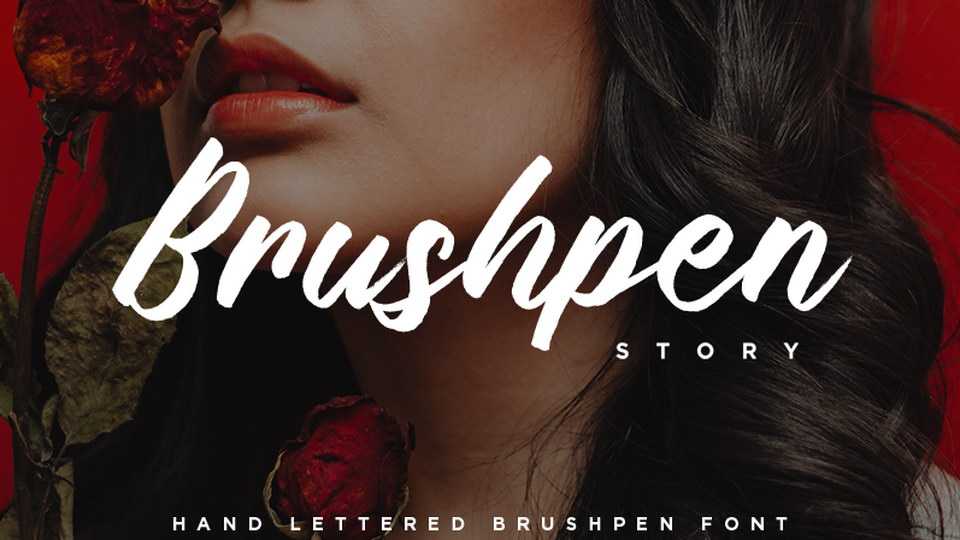
Download Brushpen Story font, a beautiful hand lettered brushpen script. Brushpen Story font perfectly fits for branding, craft design, t-shirts and apparel, social media, quotes and more.
Designer: The Trending Fonts